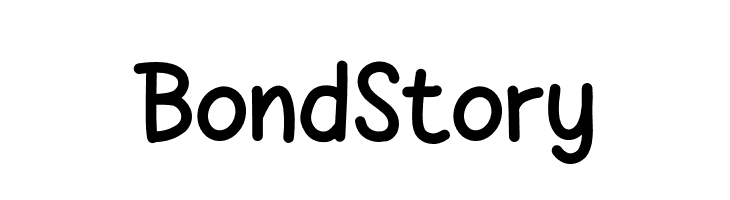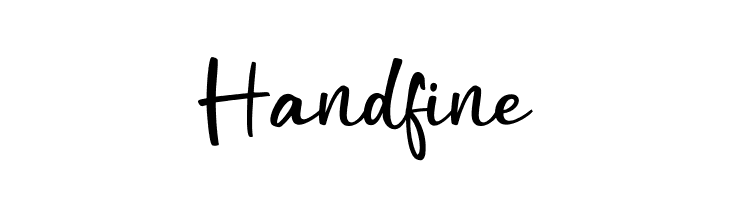
A playful, casual handwritten font with rounded edges and consistent flow.
A playful, handwritten font with tall, narrow letters and a casual style.
A playful, handwritten font with bold, rounded characters and a whimsical style.
A flowing, cursive script font with elegant, interconnected strokes.
A bold, expressive script font with a handwritten, cursive style.
A cursive, handwritten font with elegant, flowing strokes.
A playful, casual handwritten font with a dynamic and friendly style.
A playful, handwritten font with smooth curves and a casual style.
A cursive, handwritten-style font with smooth curves and a personal touch.
A playful, handwritten font with rounded edges and a casual, friendly style.